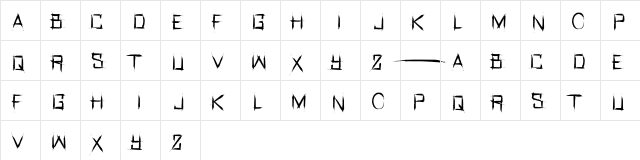
Real Horror Regular
| Foundry | Font Monger |
| Designer | Chris Vile |
Design Context for Real Horror Typeface
Real Horror carries an unsettling edge — its distorted letterforms are built to unsettle, perfectly suited to horror, Halloween, and dark creative work.
Ideal for Halloween projects, horror film titles, haunted house signage, and dark editorial design.
Font Pairing: Pair with a clean neutral sans-serif for body copy to let Real Horror's character lead without overwhelming the composition.
Pro Tip: Real Horror works best as a headline or focal element. Pair it against plain, neutral body text to amplify the contrast.